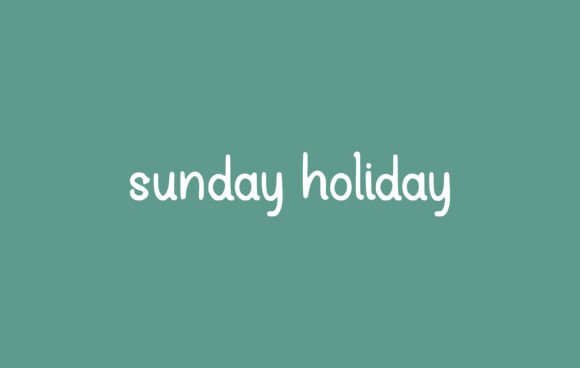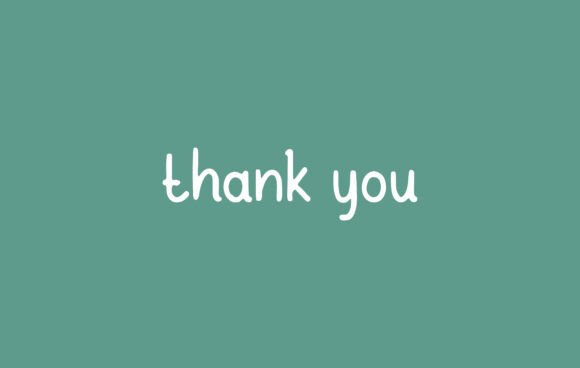
Introduction to Rylan Font
Have you ever been working on a creative project, pouring your heart and soul into it, only to be held back by the right font to bring it all together? That was me, until I stumbled upon the Rylan Font. This authentic handwritten font is more than just a design resource – it’s a game-changer.
With its romantic touch and high-quality design, the Rylan Font is a must-have for any designer looking to take their creative ideas to the next level. Whether you’re working on a magazine headline, social media post, or wedding invitation, this font is sure to impress. And the best part? It’s free to download, making it an accessible resource for designers of all levels.
Key Features of Rylan Font
- Includes a range of glyphs, including uppercase and lowercase letters, numbers, and punctuation
- Designed with a modern and sleek aesthetic, making it perfect for digital and print applications
- Supports a wide range of languages, including Latin, Cyrillic, and Greek scripts
Honest Review: Rylan Font
I recently had the chance to work with the Rylan Font, and I have to say, it’s been a game-changer for my design projects. As a designer, I’m always on the lookout for high-quality fonts that can elevate my work and help me stand out.
One of the things that really impressed me about Rylan Font is its versatility. It’s perfect for a wide range of creative projects, from logos and branding to digital art and graphics. I’ve used it for everything from social media posts to presentations, and it always looks great.
Here are some things that work well about Rylan Font:
- High-quality design that looks great on any background
- Transparent background makes it easy to use in complex designs
- Great for creative projects that require a unique, eye-catching font
That being said, there are a few limitations to consider:
- Some users may find the font a bit too bold or overpowering
- Not ideal for projects that require a more subtle or minimalist design
Overall, I’m really impressed with Rylan Font. It’s a great addition to any design resource library, and I would highly recommend it to fellow designers looking for a high-quality, versatile font.
Rylan Font
The Rylan Font is a versatile and stylish design resource ideal for creative projects that require a touch of elegance. This high-quality font can be easily downloaded for free, making it an excellent addition to any design arsenal.
Tips for Getting the Most Out of Rylan Font
For the best results, use the Rylan Font with a transparent background to create a clean and modern look. You can also experiment with different font sizes and colors to add emphasis and visual interest to your design.
Common Use Cases for Rylan Font
The Rylan Font is ideal for a wide range of creative projects, including logos, business cards, brochures, and social media graphics. It’s also a great choice for presentations, documents, and other business materials that require a professional and polished look.
Alternatives to Rylan Font
Pacifico is a beautiful, elegant script font ideal for creative projects, wedding invitations, and other design elements that require a touch of sophistication. It’s available for free download and offers a high-quality, transparent background that blends seamlessly with any design.
Compared to Rylan Font, Pacifico has a more refined and luxurious feel, making it perfect for high-end designs. It’s also highly versatile and can be used for both print and digital projects.
Great Vibes is a modern, handwritten font that’s perfect for creating a fun and lively atmosphere in your designs. It’s a great resource for designers looking to add a touch of personality to their creative projects, and it’s available for free download with a transparent background.